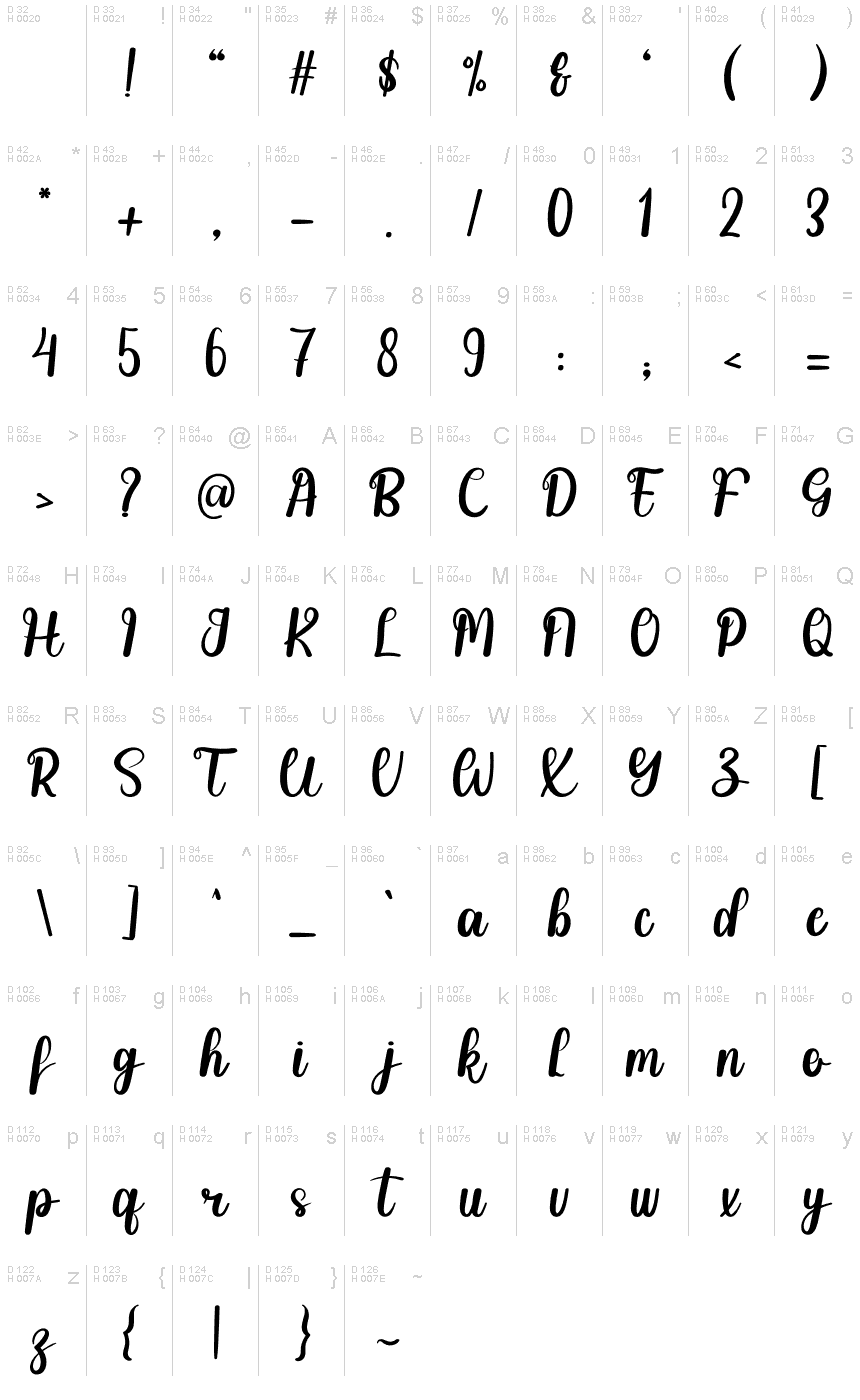
Christmas Handmade
Introducing Christmas Handmade by Inermedia Studio - a bold, handwritten font perfect for crafting unique designs. From festive greeting cards and holiday decorations to creative gift tags and wrapping paper, this font is sure to bring a touch of cheer to any project. With its fun and playful lettering, it's also ideal for logos, posters and banners. Let Christmas Handmade be your go-to font this season!